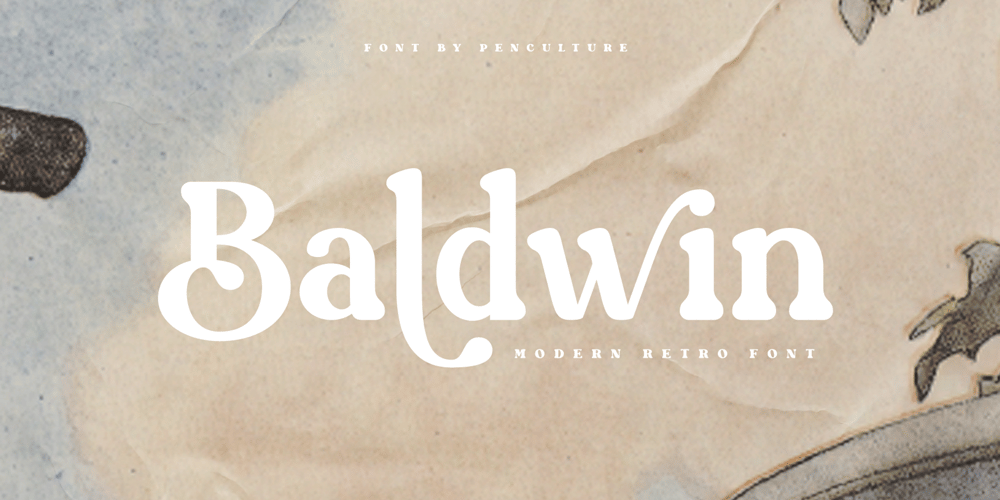
Baldwin
Baldwin font
Baldwin Font Family was designed by Revo Farsiky and published by Pen Culture. Baldwin contains 1 styles and family package options. Introducing Baldwin, a modern retro serif font that seamlessly blends contemporary design with vintage flair. With its clean lines and classic letterforms, Baldwin exudes a timeless elegance that is perfect for a wide range of design projects. Whether you’re creating branding materials, editorial layouts, or web designs, this versatile font will add a touch of sophistication to your work.Featuring a distinctive, slightly geometric serif style, Baldwin offers a fresh take on traditional serifs. Its balanced proportions and subtle detailing create a harmonious look that is both refined and approachable. Available in a variety of weights and styles, this font is designed to adapt to any design setting, from headlines to body copy.I really hope you enjoy it – please do let me know what you think, comments & likes are always hugely welcomed and appreciated. More importantly, please don’t hesitate to drop me a message if you have any issues or queries.Thank you